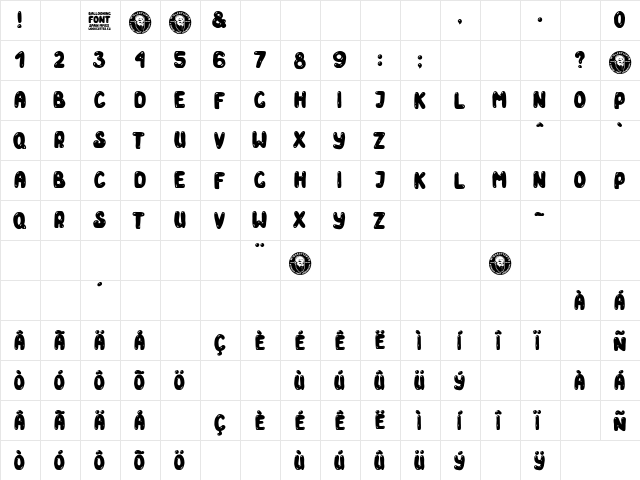
Ballooning Regular
| Designer | Woodcutter Manero |
Design Context for Ballooning Typeface
Ballooning is a composed and adaptable typeface that performs quietly and consistently across a wide range of design contexts.